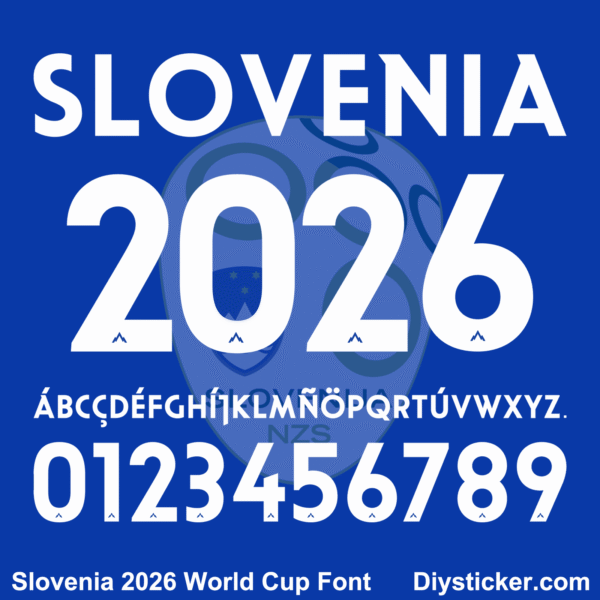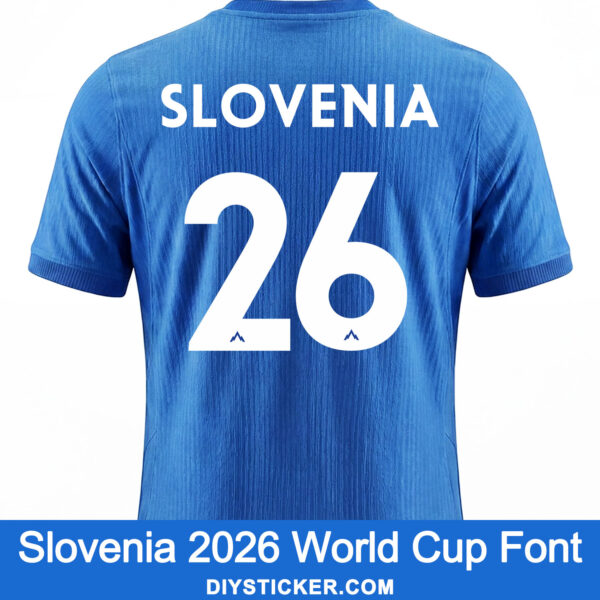
Slovenia 2026 World Cup Font & Numbers Vector Kit: Premium UEFA Tournament Customization
Upgrade your custom print production with the high-performance Slovenia 2026 World Cup font and complete numbers set. Designed to perfectly replicate the striking national team look worn during international qualifiers and world championship stages, this digital toolkit offers unrivaled geometric precision. Whether you are creating a custom name-set for a passionate fan or compiling massive promotional sports signage, our vector files ensure factory-fresh alignment. Discover more iconic international tournament designs by exploring our curated World Cup 2026 Fonts repository.
Aesthetic Design Breakdown & Typography Engineering
The Slovenia 2026 World Cup font features a clean, highly legible athletic geometry combined with symbolic regional identity:
Iconic Mt. Triglav Baseline Branding: Nestled precisely within the bottom center base of every single digit is a custom, sharp triple-peaked mountain graphic. This clean vector icon represents Mount Triglav, giving the numbers a powerful national identity and ultimate replica authenticity for high-end customization.
Modern Sans-Serif Structure: The alphabet utilizes a crisp, high-impact uppercase sans-serif design. Sharp apexes on letters like ‘A’ and ‘M’ mirror the mountain motifs, creating a cohesive visual language across the player’s name and number.
Clean High-Contrast Aesthetic: Engineered to pop with maximum visual impact when rendered in solid crisp white against the team’s vibrant blue textured kits, or inverted beautifully for away kit applications.